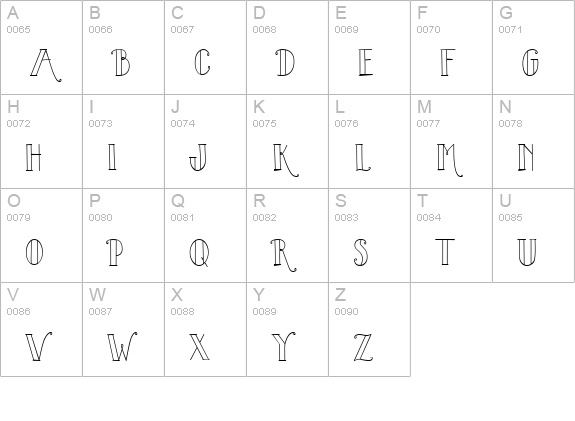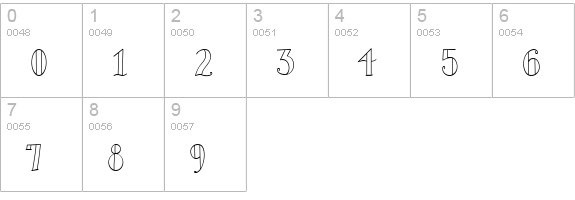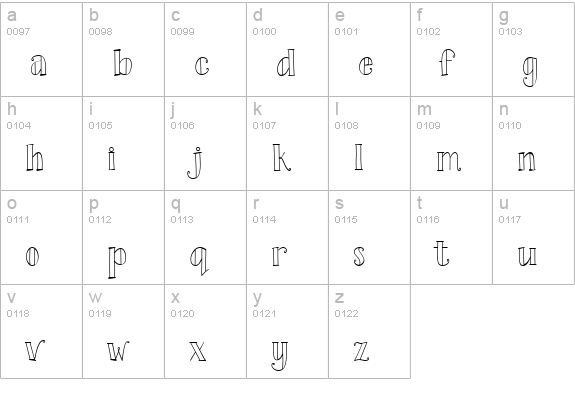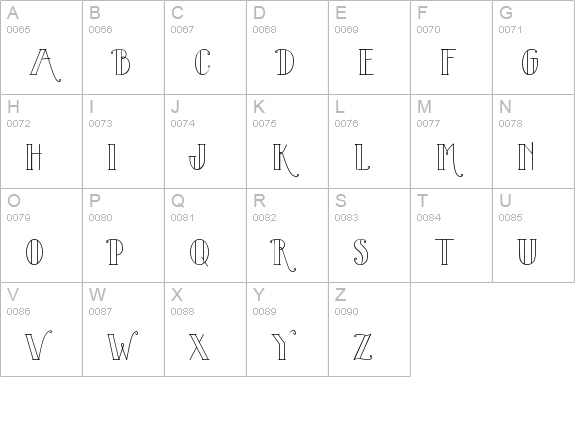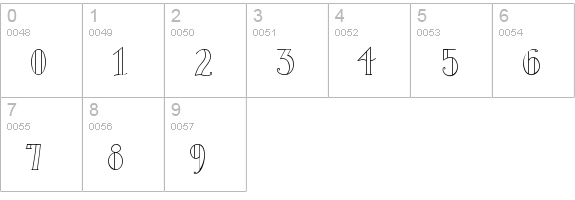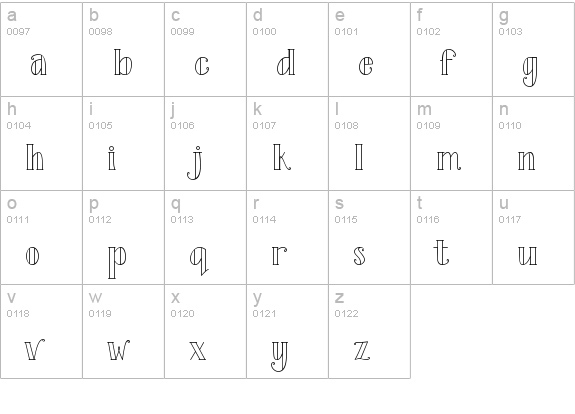
CK Wedding Font Details
CK Wedding font is a sophisticated and elegant typeface designed specifically for wedding invitations, announcements, and other special occasions. Its graceful and flowing letterforms exude a sense of romance and beauty, making it the perfect choice for adding a touch of charm to your designs. This exquisite font features delicate serifs and intricate details that give it a timeless and classic look. Whether you're planning a traditional or modern wedding, CK Wedding font will add a touch of luxury and refinement to your stationery. The best part is that CK Wedding font is available for free download at FontsMarket.com. So, whether you're a professional designer or a DIY bride, you can easily access this stunning font to elevate your wedding projects. Don't miss out on the opportunity to add a touch of elegance to your special day with CK Wedding font.